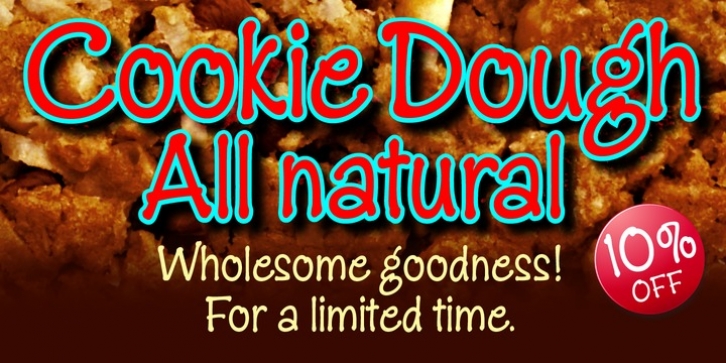
Cookie Dough was designed by Bob Alonso and published by BA Graphics. Cookie Dough contains 1 style.
A nice loose hand written brush or marker type script.